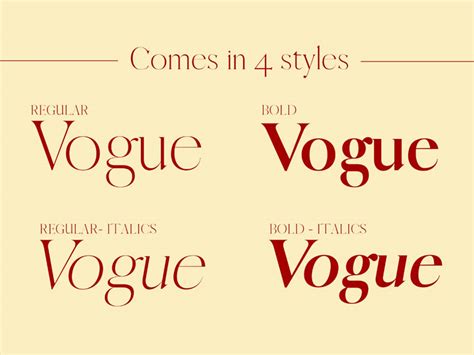
What Font Does Vogue Use. With this font free version, you. Vogue magazine font was created by vladimir nikolic.
What font does Vogue use?
Vogue magazine font was created by vladimir nikolic. With this font free version, you. Web the font used by vogue, called didot, has become synonymous with elegance, luxury, and sophistication. Vogue has used a variety of custom fonts over the. Vogue magazine has a rich history of experimenting with various fonts to represent its brand. Designed in the late 18th century by. Web size vogue by vladimir nikolic in basic > serif 6,173,539 downloads (2,122 yesterday) 23 comments free for personal use download donate to author vogue.ttf. Web what font does vogue magazine use?
Vogue magazine has a rich history of experimenting with various fonts to represent its brand. Vogue has used a variety of custom fonts over the. Designed in the late 18th century by. Vogue magazine font was created by vladimir nikolic. Web size vogue by vladimir nikolic in basic > serif 6,173,539 downloads (2,122 yesterday) 23 comments free for personal use download donate to author vogue.ttf. Web what font does vogue magazine use? With this font free version, you. Vogue magazine has a rich history of experimenting with various fonts to represent its brand. Web the font used by vogue, called didot, has become synonymous with elegance, luxury, and sophistication.